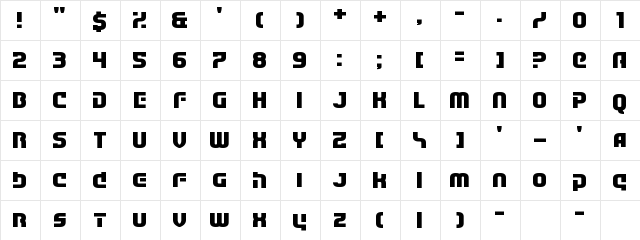
53 Dollars And 92 Cents Regular Font Preview
53 Dollars And 92 Cents Regular
Design Context for 53 Dollars And 92 Cents Typeface
53 Dollars And 92 Cents is a composed and adaptable typeface that performs quietly and consistently across a wide range of design contexts.